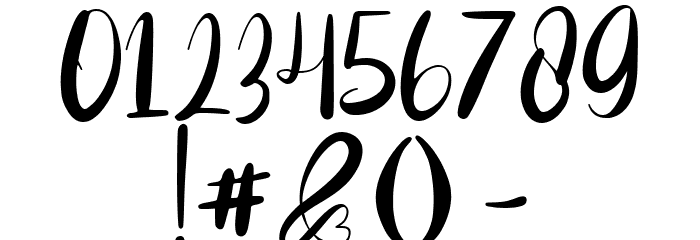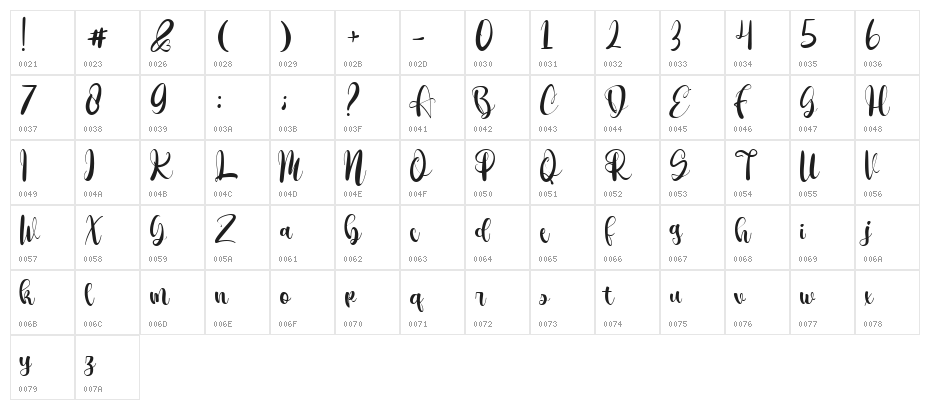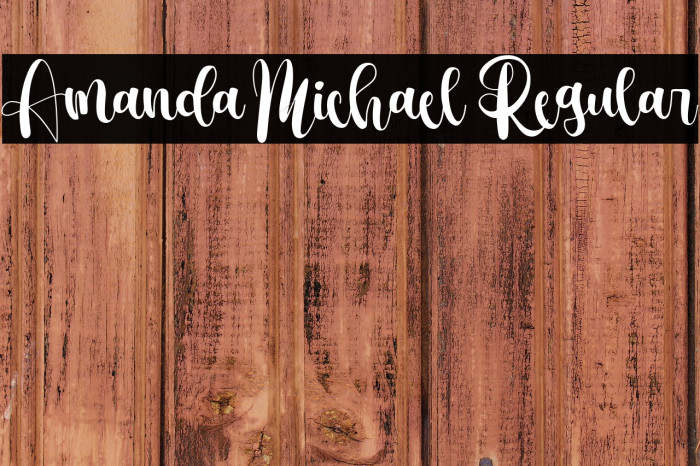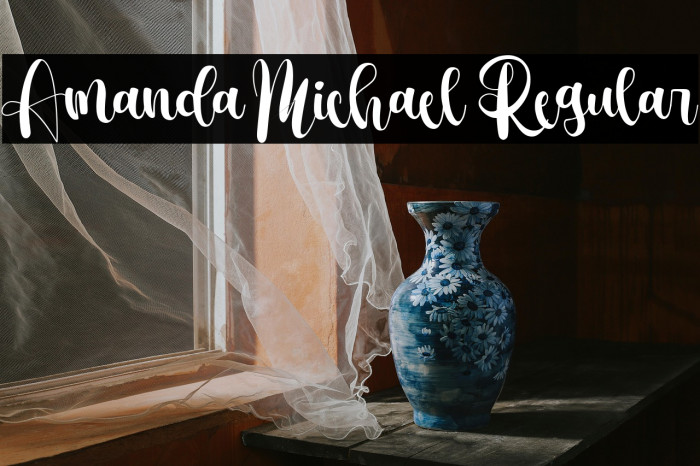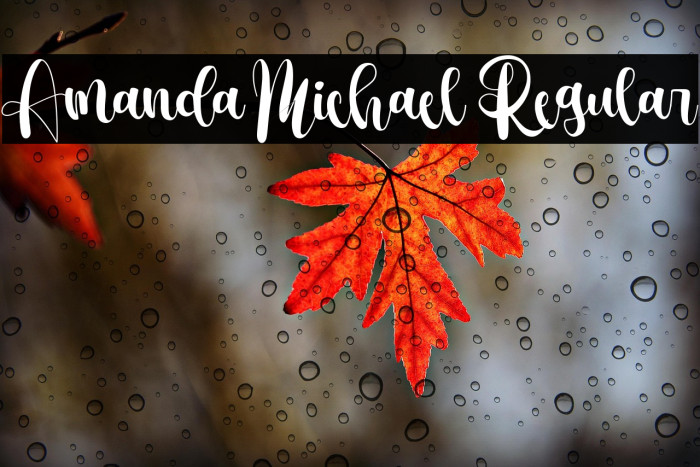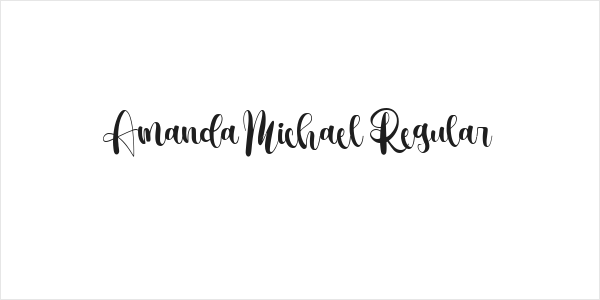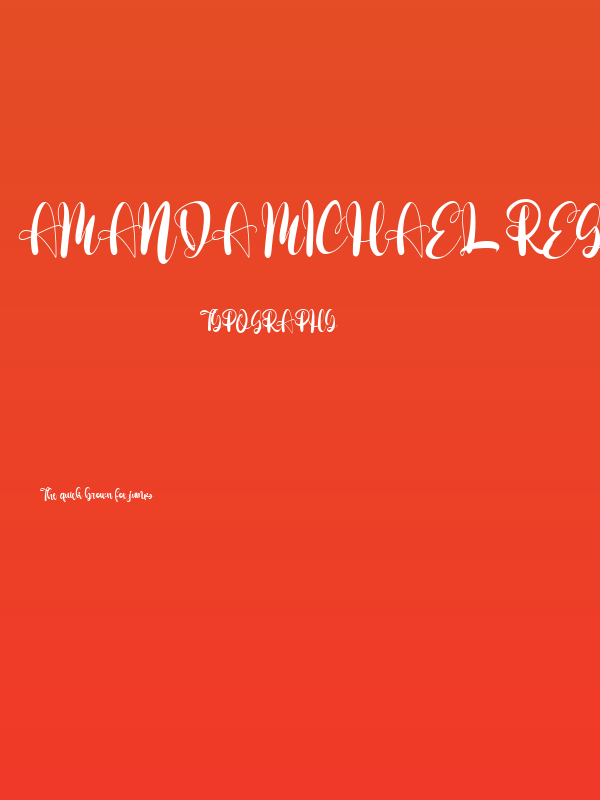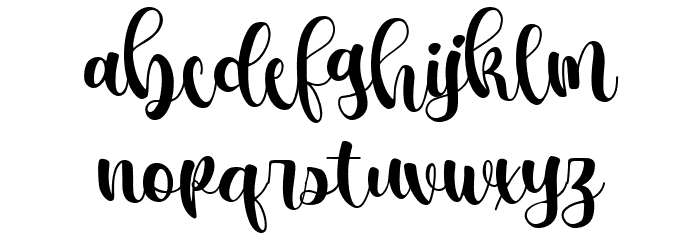
Amanda Michael Regular Font
Amanda Michael Regular Description
This font features a flowing, cursive style with elegant loops and swirls, giving it a handwritten appearance. The uppercase letters are bold and expressive, with dramatic flourishes that add a sense of movement and grace. The lowercase letters maintain a consistent style, with smooth curves and a slightly playful touch. Numbers and special characters are designed to match the overall aesthetic, ensuring a cohesive look across different uses. The font's artistic flair makes it ideal for creative projects that require a personal touch.